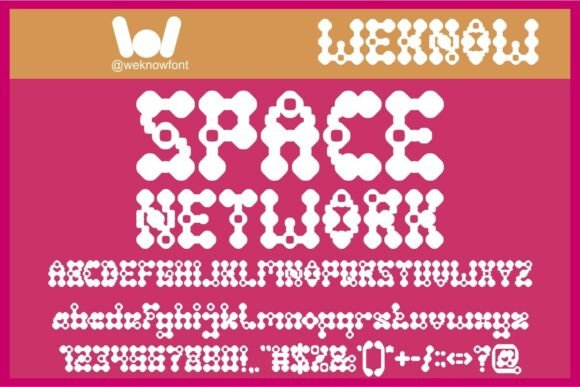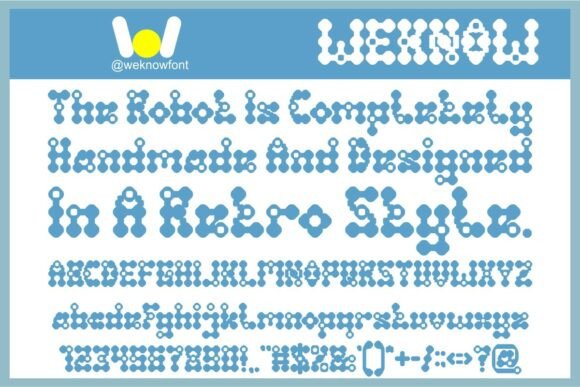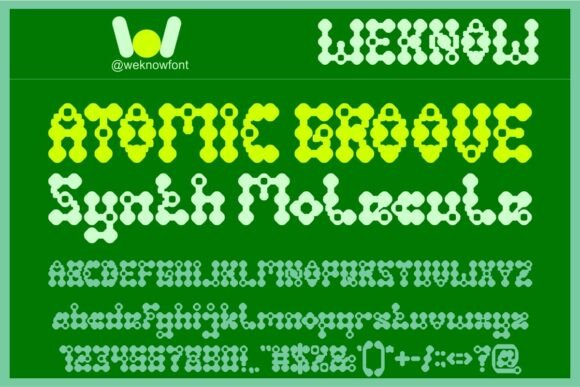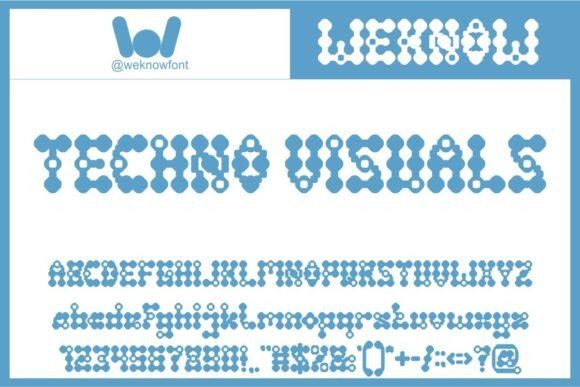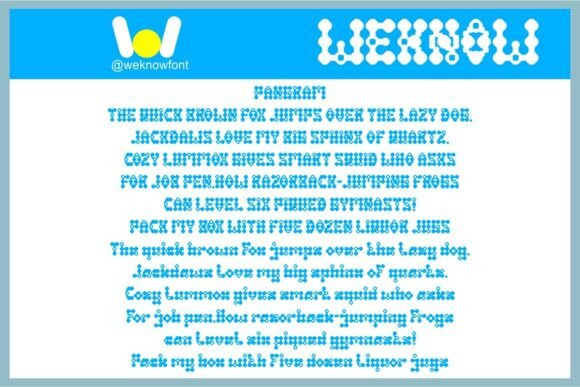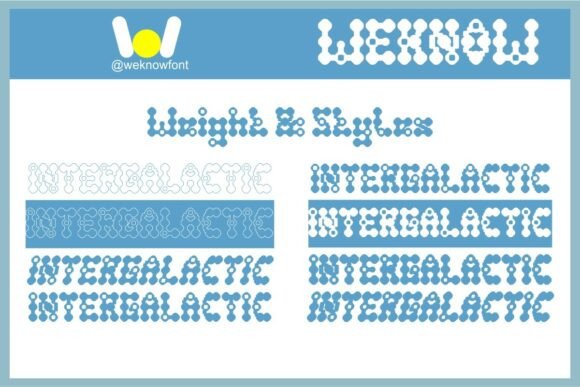
Introduction to Intergalactic Font
As a designer, have you ever stared at a blank canvas, trying to conjure up the perfect visual representation for your latest project? The struggle is real – until you stumble upon a game-changing design resource that propels your creativity to new heights. That’s exactly what the Intergalactic Font does, transporting your layout into a realm of unparalleled cosmic wonder.
This extraordinary typeface is more than just a font – it’s a portal to a world of limitless possibility. With its unique, modular design mimicking stellar coordinates and alien circuitry, the Intergalactic Font is an invaluable asset for any designer looking to add an otherworldly touch to their work. Whether you’re working on a high-quality logo for a tech startup or crafting a free download for an electronic music festival, this font is sure to elevate your creative project to new levels of sophistication.
Key Features of Intergalactic Font
- High-quality design resource ideal for creative projects requiring a unique aesthetic.
- Features a transparent background, allowing for seamless integration with any design.
- Includes a range of characters, including uppercase and lowercase letters, numbers, and special characters.
- Designed with a high-resolution (300 DPI) for optimal clarity and readability.
- Supports various font sizes and styles, making it perfect for titles, headings, and body text.
- Unique, futuristic design makes it perfect for science fiction, space-themed, and futuristic projects.
Honest Review: Intergalactic Font
I recently came across the Intergalactic Font and I have to say, it’s been a game-changer for my creative projects. The font is perfect for anyone looking to add a touch of otherworldliness to their designs.
Here are some things that work well: ✨ High-quality design: The Intergalactic Font is incredibly detailed and well-designed, making it perfect for a wide range of creative projects.
- ✨ Transparent background: The font’s transparent background allows for seamless integration with any design, making it a versatile resource.
However, there are some limitations: ⚠️ Not ideal for body text: While the Intergalactic Font is perfect for headlines and titles, it may not be the best choice for body text due to its unique design.
Overall, I’m thoroughly impressed with the Intergalactic Font. It’s a fantastic design resource that adds a touch of creativity to any project. If you’re looking for a unique font to elevate your designs, I highly recommend giving it a try.
How to Use Intergalactic Font
The Intergalactic Font is perfect for designing creative projects, such as sci-fi themed posters, space-inspired graphics, and futuristic presentations. You can also use it for designing visual content for social media, websites, and other online platforms.
Tips for Getting the Most Out of Intergalactic Font
To get the most out of the Intergalactic Font, use it in combination with a transparent background to create a unique and eye-catching design. You can also experiment with different font sizes, colors, and styles to match your design concept. Additionally, use the font in high-quality design projects, such as presentations and posters, to make a lasting impression.